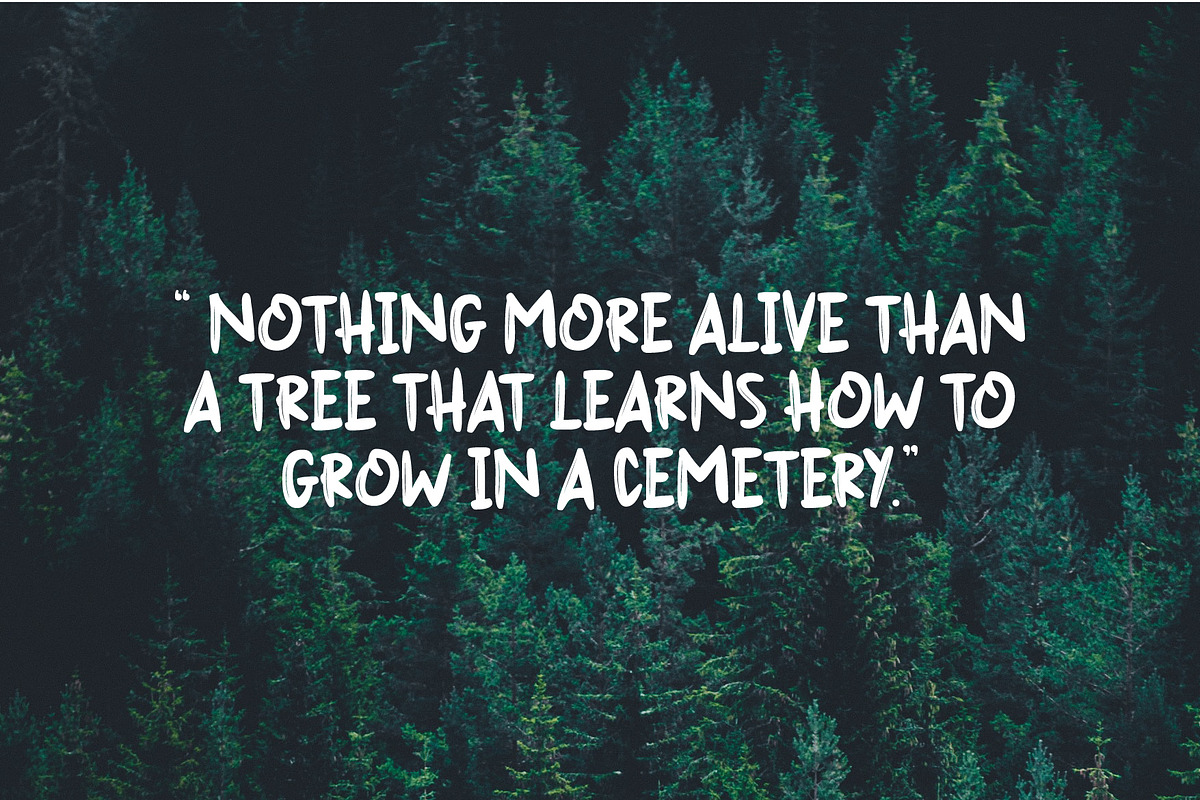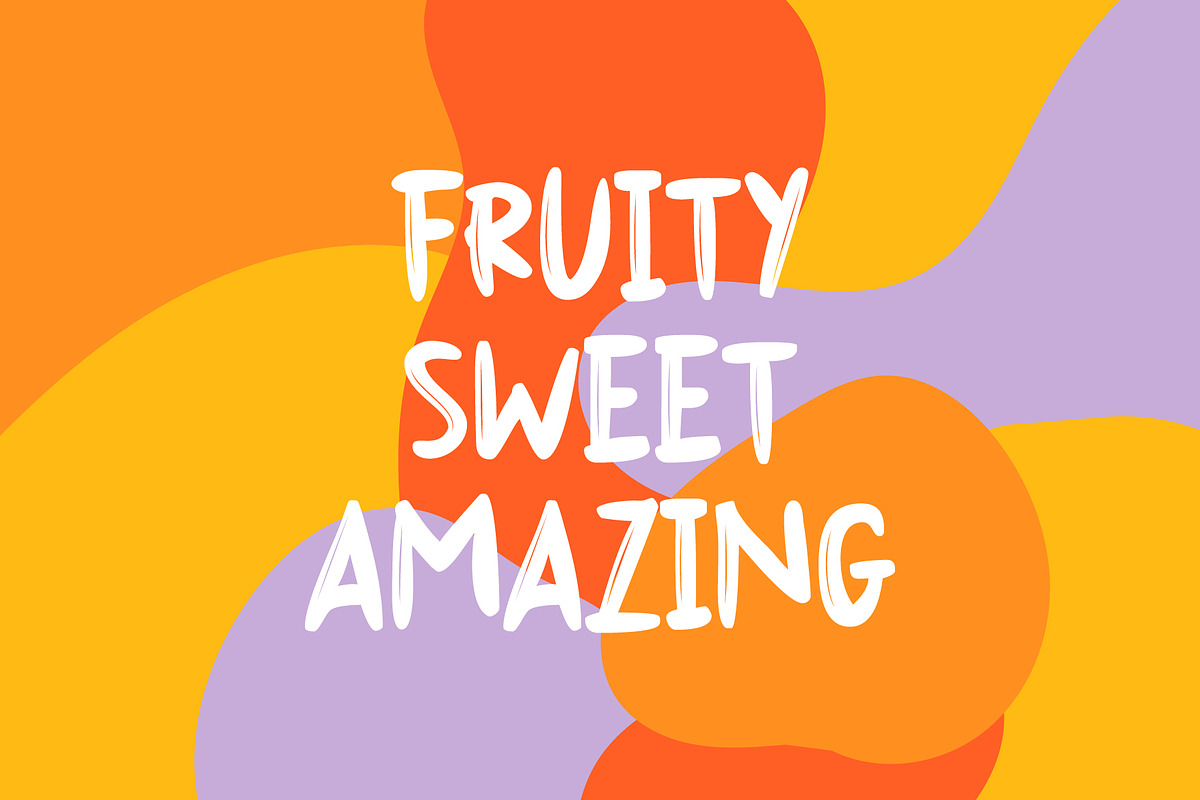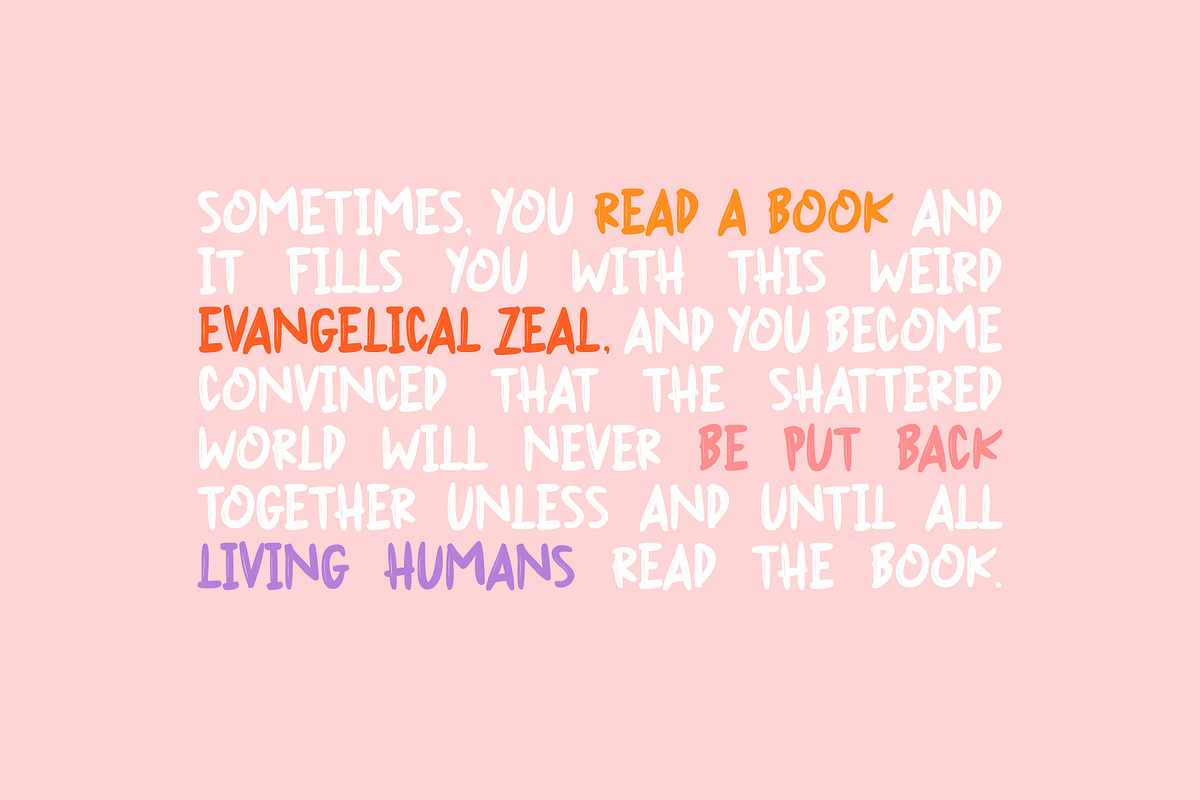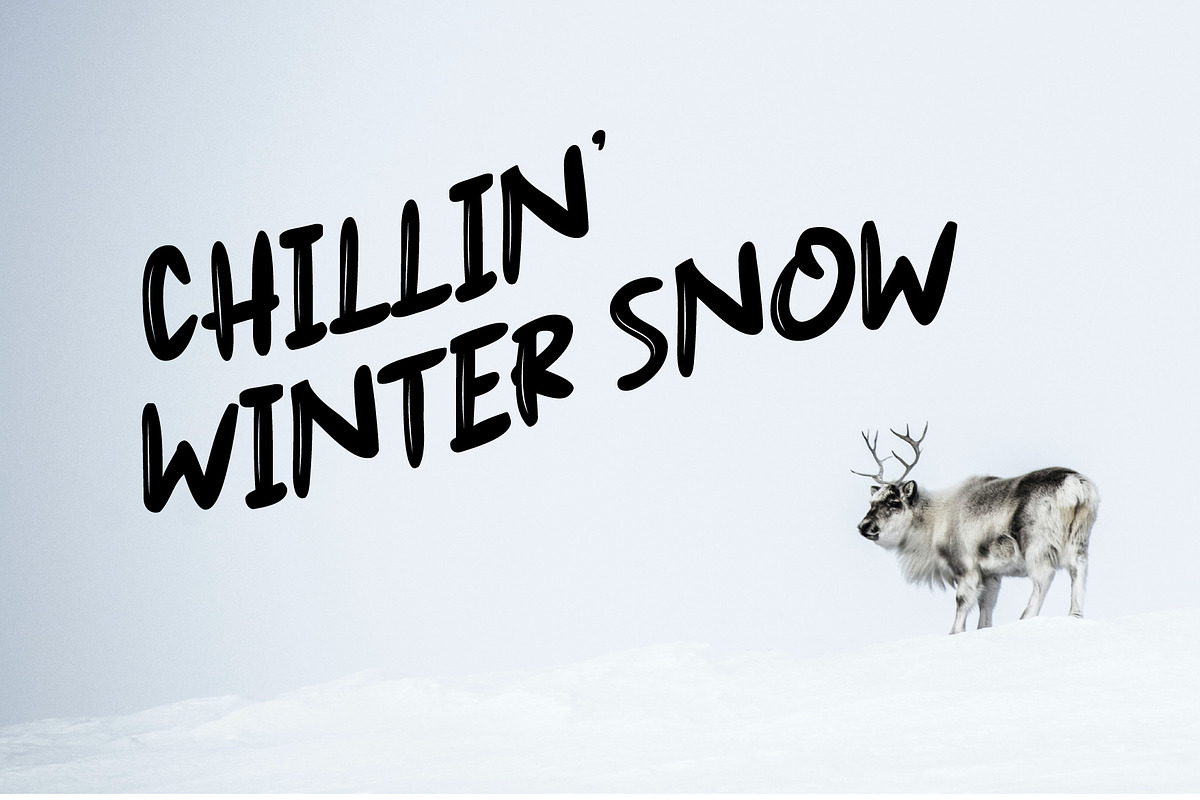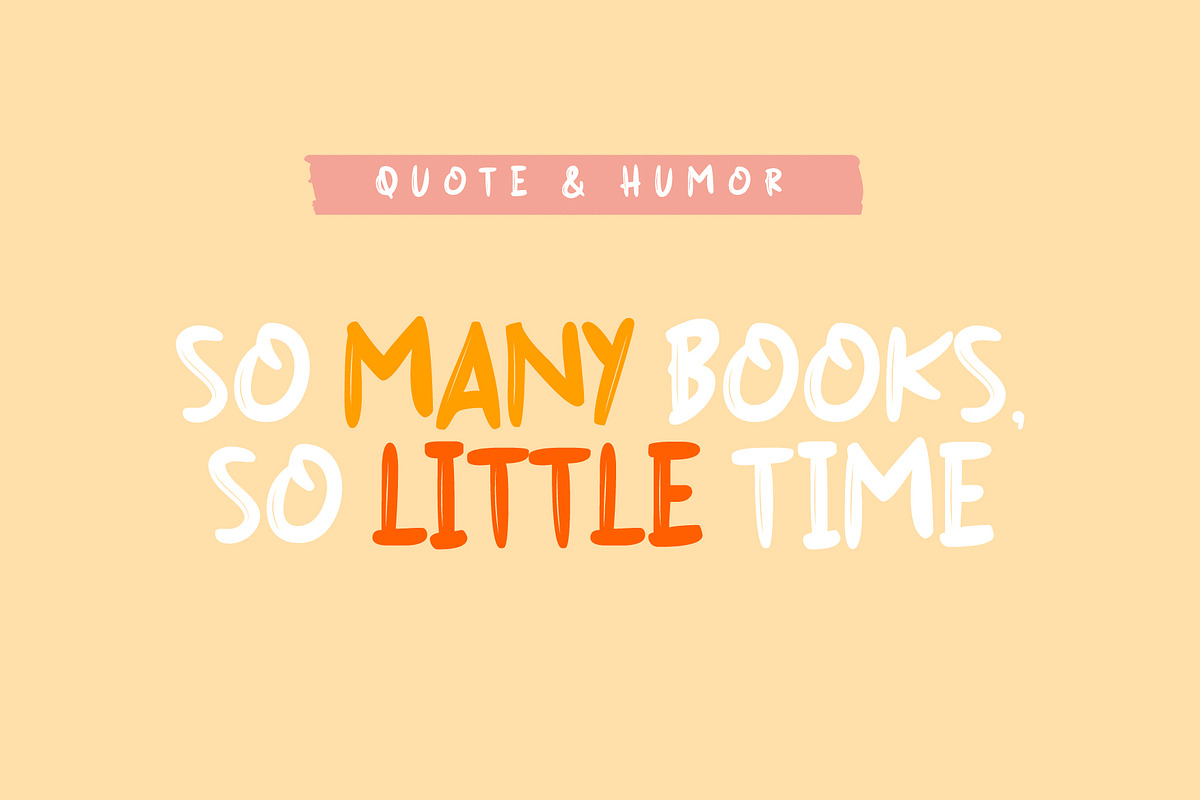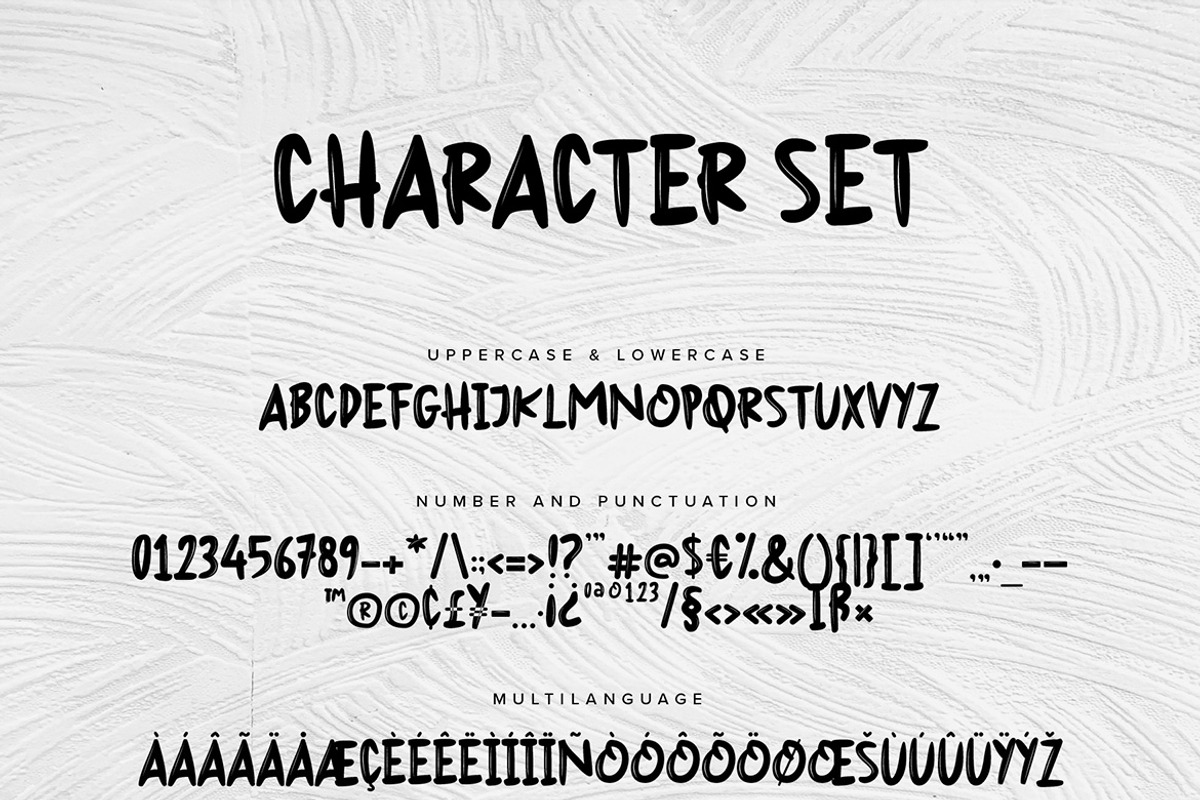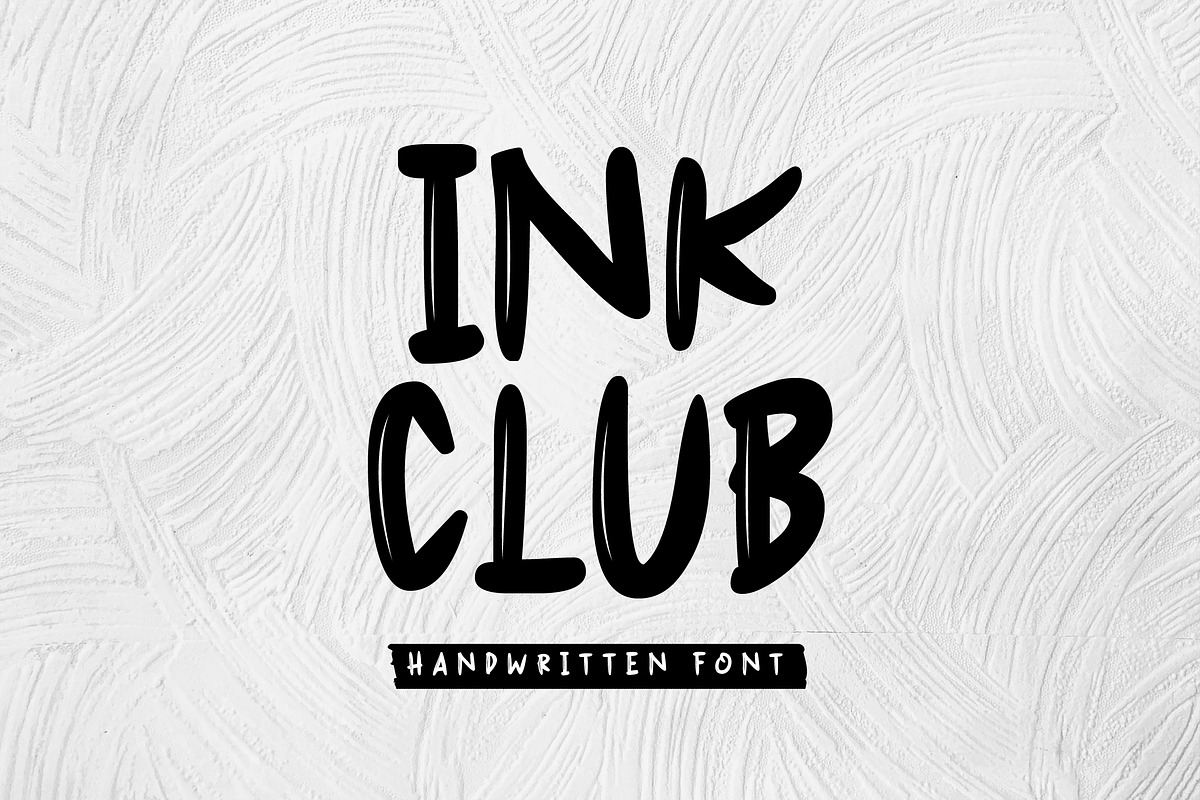
Ink Club - Handwritten Font
Ink Club is a handwritten font created with ink style and to fit to use as branding project designs. It features an unique style and will add smooth and natural feel to your upcoming projects. Get inspired by its unique feel and use it to create designs, posters, brand logo, product packaging and many more!
Ink Club - Handwritten Font by Kreativ Space fits naturally into Branding, posters, packaging, typography.